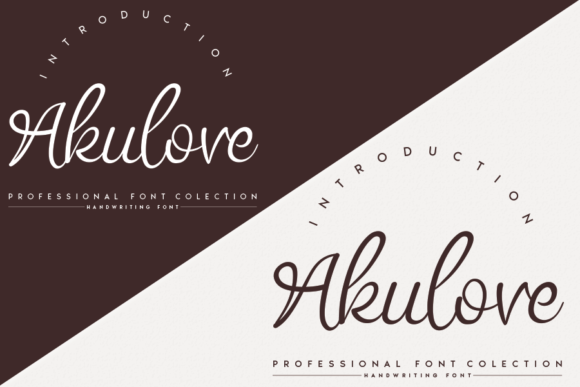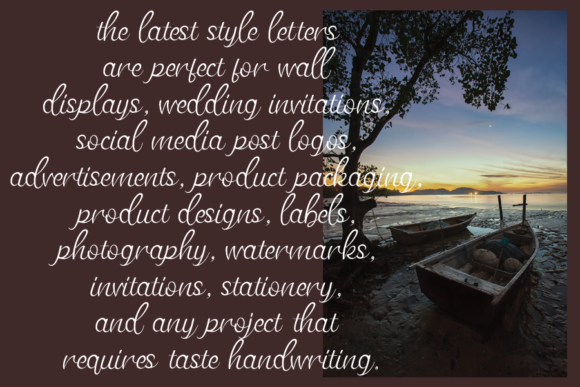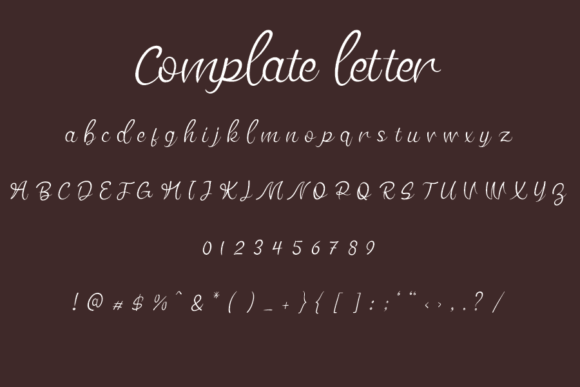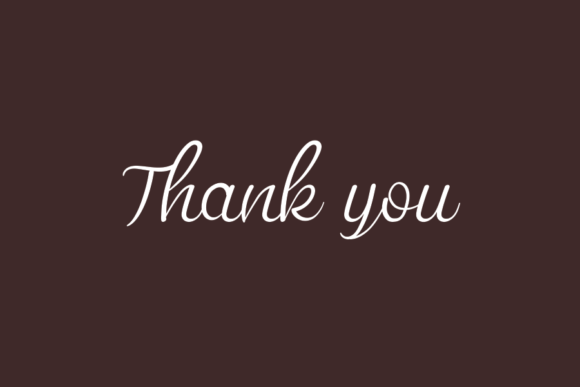
The Art of Handwritten Perfection: Unleashing the Power of Akulove Font
There’s something magical about the first sketch of an idea. The blank page stares back at you, full of possibilities, and your imagination runs wild. As you begin to bring your concept to life, the right tools can make all the difference. That’s where the Akulove Font comes in – a stunning pairing of brush pen and pencil that adds an authentic touch to any DIY project.
Designed to capture the essence of handwritten beauty, Akulove Font is more than just a font – it’s a creative catalyst. Whether you’re a seasoned designer or a DIY enthusiast, this gorgeous and unique font is sure to elevate your projects and make them truly special. Its value lies in its ability to add a personal touch, making each piece one-of-a-kind and full of character.
Akulove Font Key Features
- Font Style: Script, Handwritten
- Character Count: 200+ glyphs, including Latin, Cyrillic, and Greek alphabets
- Size and Resolution: Supports font sizes from 8 to 1000 points, scalable to any resolution
- Unique Characteristics: Hand-drawn design with a playful, elegant feel, ideal for creative projects and branding
Akulove Font Review
I recently had the chance to work with the Akulove font, and I must say it’s a unique and eye-catching addition to any design project. ✨ The font’s playful, handwritten feel is perfect for creating a friendly and approachable atmosphere, making it ideal for branding, marketing materials, and social media graphics.
Here are some of the things that work well with the Akulove font:
- ✨ Unique and creative feel that sets it apart from more traditional fonts
- ✨ Excellent for use in titles, headings, and other prominent text elements
- ⚠️ May not be suitable for use in body text or long paragraphs due to its informal feel
- ⚠️ Can be difficult to read at very small font sizes
Overall, I’m impressed with the Akulove font’s potential for adding a touch of personality to designs. While it may not be suitable for every project, it’s definitely worth considering for those looking to create a unique and memorable visual identity.
Common Use Cases for Akulove Font
The Akulove font is ideal for:
– Creating elegant and sophisticated designs.
– Adding a touch of luxury and sophistication to your branding.
– Designing invitations, menus, and other print materials.